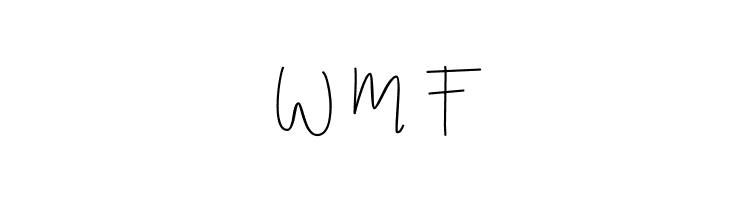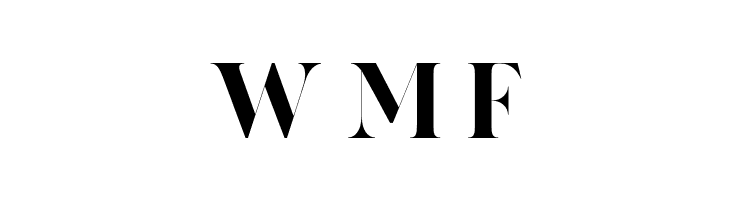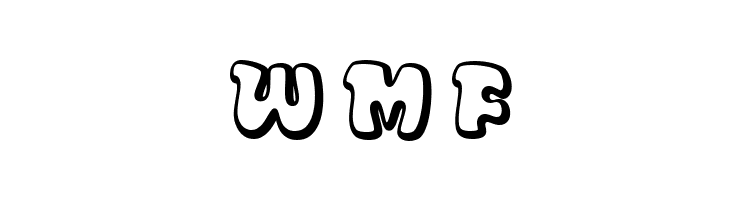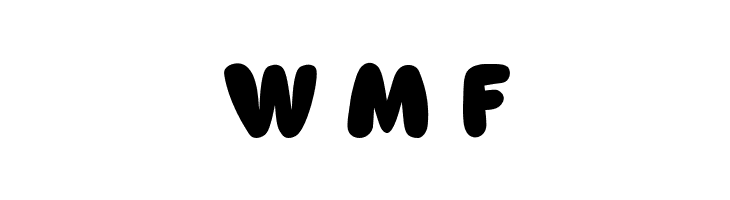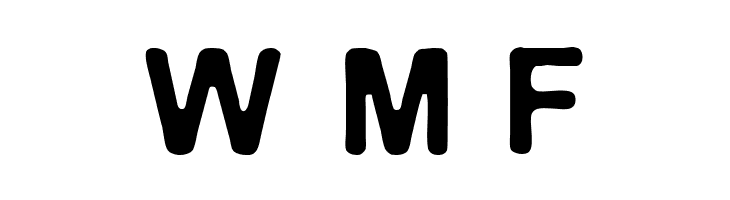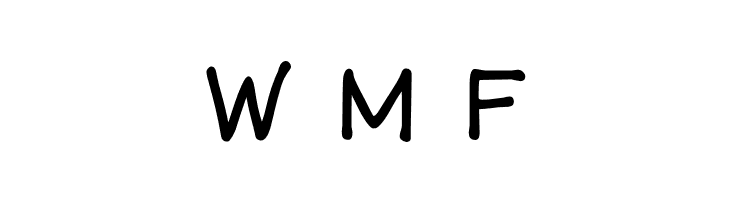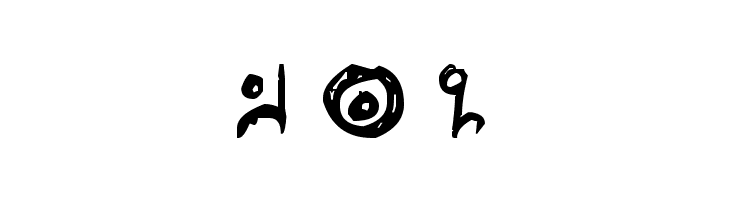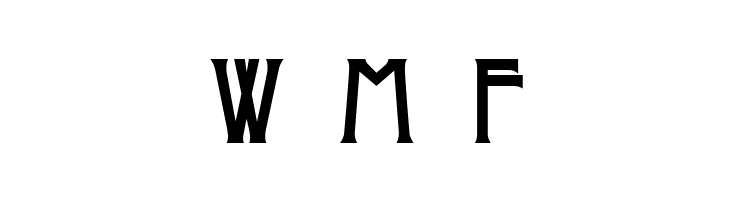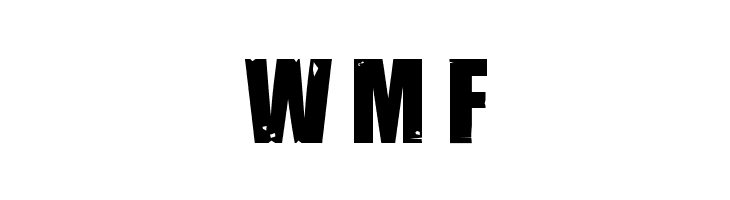
AlteDIN1451Mittelschrift Font
A geometric sans-serif font with uniform strokes and high legibility.
Beckasin Font
Font by Mans Greback - www.mawns.com
A bold, dynamic font with sharp angles and curves, perfect for making a statement.
Andika Basic Font
A clean, sans-serif font with a modern and approachable design.
Medianburner Font
A bold, rounded font with smooth curves and uniform strokes.
Devinne Swash Font
Font by Dieter Steffmann
A bold, medieval-inspired font with angular serifs and medium contrast.
Baccer Font
A bold, geometric stencil-style font with a strong industrial feel.
Howvetica Font
Nautica Regular Font
A decorative font with circular motifs and geometric precision.
OPTIMoldy-DemiBold Font
A bold serif font with strong, thick strokes and a modern twist.
Walbaum-Fraktur-Bold Font
Font by Dieter Steffmann
A bold, ornate Blackletter font with intricate details and strong historical elegance.
OliJo-Bold Font
Font by Manfred Klein - manfred-klein.ina-mar.com
A bold, modern typeface with strong lines and a commanding presence.
Geometric Font
A bold, geometric font with uniform strokes and a modern aesthetic.
Coiny Cyrillic Font
Denis Ignatov - mutno.me/fonts
A bold, rounded font with a playful and friendly style.
CK_Alis_Hand_Official Font
A playful, casual handwritten font with loose, flowing strokes.
Amita Regular Font
An elegant script font with medium contrast and flowing curves.
Amateur Slash Font